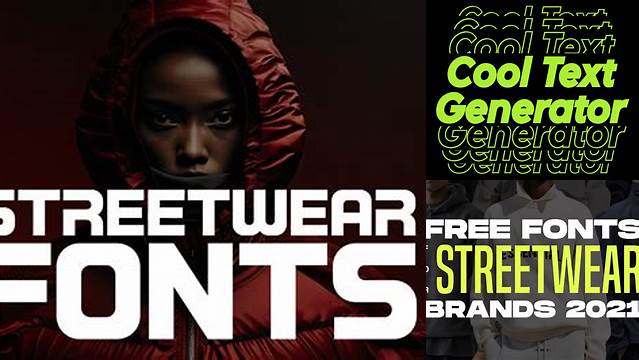
Free Streetwear Font Generator: Create Cool Text!
Hey guys! Want to make your designs pop with some awesome streetwear fonts? You've come to the right place! In this article, we're diving deep into the world of streetwear fonts and how you can generate them for free. Whether you're designing a logo, a t-shirt, or just want to add some street style to your social media, we've got you covered. Let's get started!
What is a Streetwear Font?
Before we jump into the generators, let's talk about what a streetwear font actually is. Think bold, edgy, and attention-grabbing. These fonts often have a raw, urban feel, drawing inspiration from graffiti, skate culture, and hip-hop. They're perfect for projects that need a bit of attitude and a strong visual impact. Streetwear fonts can range from blocky and aggressive to stylish and flowing, but they all share a common goal: to stand out from the crowd. When you're looking for a streetwear font, consider its readability, its overall style, and how well it fits the message you're trying to convey. Is it for a loud, in-your-face design, or something more subtle and sophisticated? Understanding the nuances of streetwear font styles will help you choose the perfect one for your project. Remember, the right font can make or break your design, so it's worth taking the time to explore your options and find the font that truly speaks to your vision. You'll find that the best streetwear fonts not only look cool but also enhance the overall aesthetic and message of your work.
Why Use a Streetwear Font Generator?
Why bother with a streetwear font generator? Well, creating cool text manually can be a real pain. Generators make the process super easy and fast. Plus, they often offer tons of customization options, letting you tweak the font to perfectly match your style. Using a streetwear font generator saves you time and effort, especially if you're not a design pro. You can quickly experiment with different fonts and styles without having to spend hours creating them from scratch. Many free generators also provide a wide variety of fonts that you might not find elsewhere, giving you access to unique and edgy designs. Think about it – you can test out various combinations, adjust sizes, colors, and effects, and see the results instantly. This makes it ideal for brainstorming and refining your ideas. Additionally, generators often come with pre-designed templates or layouts that you can use as a starting point, further streamlining your creative process. So, whether you're working on a personal project or a professional design, a streetwear font generator can be a valuable tool in your arsenal.
Free vs. Paid Streetwear Fonts
Top Free Streetwear Font Generators Online
Alright, let's dive into some of the best free streetwear font generators you can find online. There are tons of options out there, but we'll highlight a few that stand out. Look for generators that offer a good range of fonts, customization options, and an easy-to-use interface. Some popular choices include those with real-time previews, allowing you to see how your text looks instantly. Others might offer advanced features like kerning adjustments or custom color palettes. Always read reviews and try out a few generators to see which one fits your style and workflow. Don't be afraid to experiment with different platforms and see what they have to offer. The perfect streetwear font generator is one that not only provides cool fonts but also makes the design process enjoyable and efficient. By exploring various options, you’ll find the tool that best complements your creative vision and helps you bring your streetwear-inspired projects to life. Consider generators that also offer a library of graphics and templates to further enhance your design capabilities.
How to Use a Streetwear Font Generator: Step-by-Step
Tips for Choosing the Right Streetwear Font
Choosing the right streetwear font can make or break your design. Here are some tips to help you make the best choice:
- Consider Your Brand: Does the font match the overall vibe of your brand or project?
- Readability Matters: Make sure the font is easy to read, especially for logos and headings.
- Think About the Context: Will the font be used online or in print? Some fonts work better in certain mediums.
- Experiment with Styles: Try different streetwear font styles like graffiti, blocky, or distressed.
- Get Inspired: Look at other streetwear designs to see what fonts they use.
Choosing a font is more than just picking something that looks cool; it's about finding a typeface that communicates your message effectively and enhances your overall design. Think about the personality you want your brand or project to convey. A bold, aggressive font might be perfect for a skate brand, while a more stylized, flowing font could suit a high-fashion streetwear line. Readability is crucial, especially for logos and headings, as you want your audience to immediately understand your message. Different fonts also perform better in different mediums. For instance, a highly detailed font might look great on a website but could lose clarity in print. By considering these factors, you'll be well on your way to selecting the perfect streetwear font for your needs.
Customizing Your Streetwear Font Designs